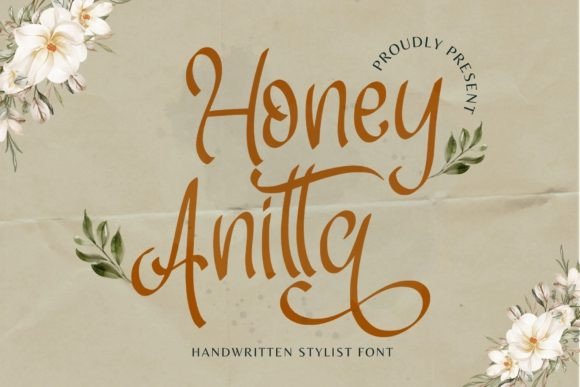
Introducing Honey Anitta, the Quintessential Script Font for Exuding Unparalleled Elegance and Romantic Charm
Step into the realm of timeless beauty with Honey Anitta, the script font that embodies grace, sophistication, and the allure of romance. Experience the exquisite artistry of this font, meticulously crafted to elevate your designs with an aura of luxury and refinement.
Honey Anitta's delicate, flowing letterforms dance across the page, adorned with intricate flourishes and swashes that add a touch of playfulness and dynamism. This symphony of curves and lines creates a visually captivating aesthetic that is sure to leave a lasting impression on your audience. Whether you're crafting wedding invitations that evoke a sense of timeless romance or designing logos that exude elegance, Honey Anitta is your perfect companion.
Unleash your creativity and explore the endless possibilities that Honey Anitta offers. Dive into the world of logos, branding, and marketing materials, where Honey Anitta's refined beauty will elevate your designs to new heights. Create stunning social media posts that capture the attention of your followers, or craft eye-catching flyers and posters that demand attention.
Honey Anitta is more than just a font; it's a gateway to a world of sophistication and allure. Its PUA encoding makes accessing the font's delightful glyphs and swashes a breeze, giving you the power to customize your designs and add a personal touch.
Indulge in the brilliance of Honey Anitta and elevate your designs to newfound heights. Embrace the symphony of curves and flourishes, and let your creativity soar. Make a statement that speaks of elegance, romance, and timeless beauty. Download Honey Anitta today and embark on a journey of design excellence.